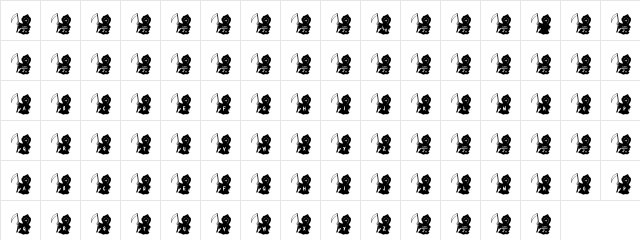
JLR Li'l Reaper Regular
Design Context for JLR Li'l Reaper Typeface
JLR Li'l Reaper is a composed and adaptable typeface that performs quietly and consistently across a wide range of design contexts.